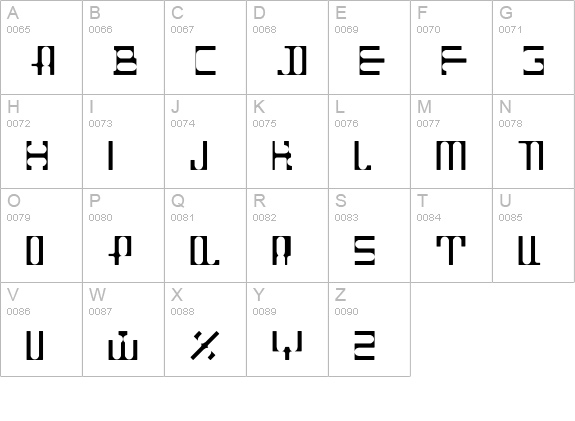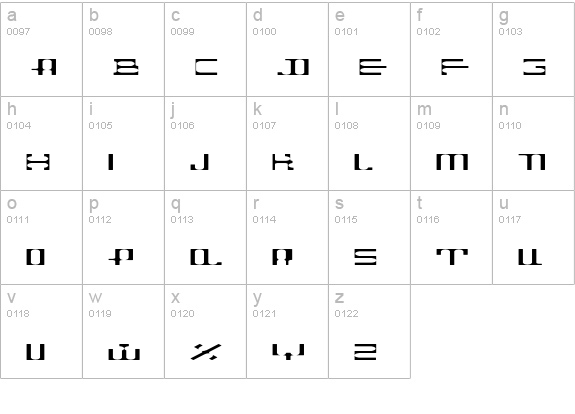
Dahgir-SquareSmCaps Font Details
Dahgir-SquareSmCaps is a captivating and versatile font that combines the elegance of square letterforms with the modernity of small capitals. This unique typeface is designed to make a statement and add a touch of sophistication to any design project. With its clean lines and geometric shapes, Dahgir-SquareSmCaps exudes a sense of precision and professionalism. Its condensed proportions allow for maximum impact in limited spaces, making it ideal for headlines, logos, and branding materials. This font boasts a wide range of characters, including uppercase letters, lowercase letters, numbers, punctuation marks, and special symbols. Each glyph is meticulously crafted to ensure consistency and legibility across different platforms and devices. One of the most appealing aspects of Dahgir-SquareSmCaps is that it is available for free download at FontsMarket.com. This means that you can access this stunning font without having to spend a dime. Simply visit FontsMarket.com, search for Dahgir-SquareSmCaps, and click on the download button to add this exceptional typeface to your collection. Whether you are a professional designer, a student, or a hobbyist, Dahgir-SquareSmCaps is a must-have font that will elevate your designs to new heights. Its versatility, elegance, and the fact that it is freely accessible, make it an invaluable resource for all your creative endeavors. So don't miss out on this incredible font, download Dahgir-SquareSmCaps today and unleash your creativity like never before.